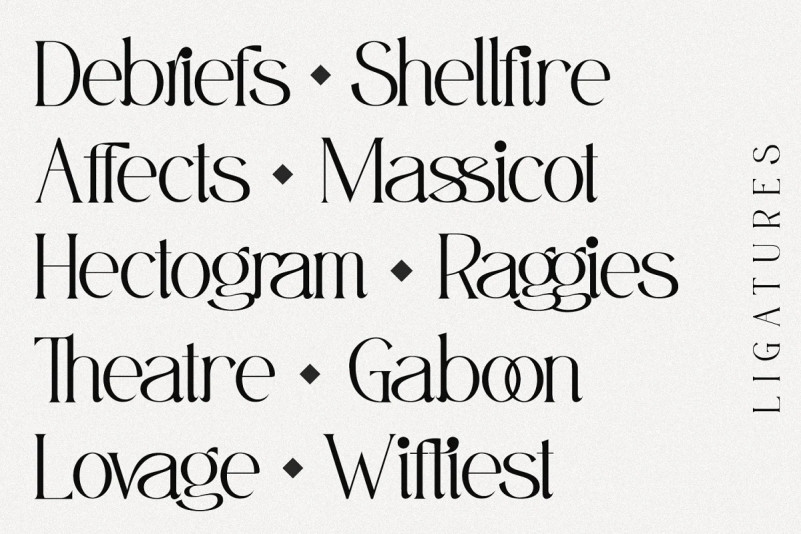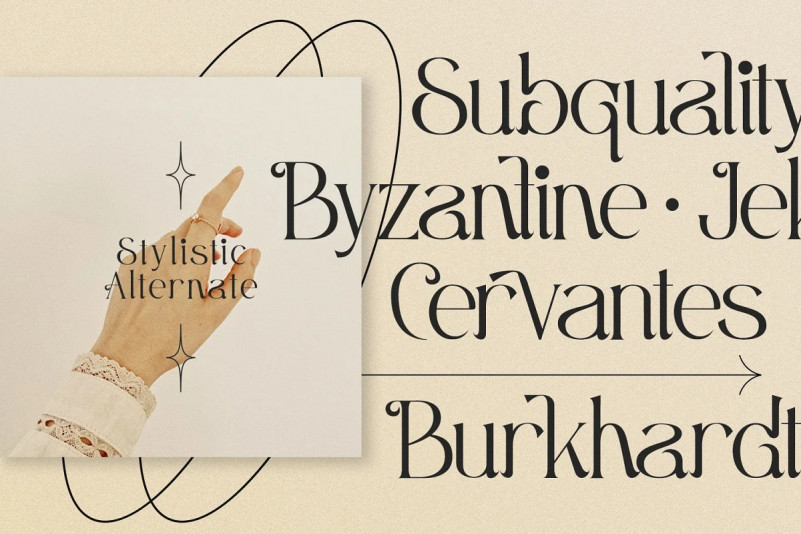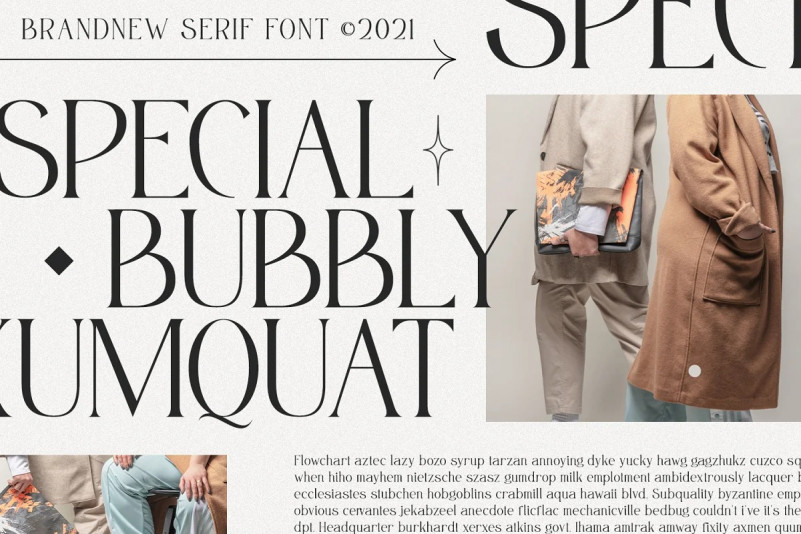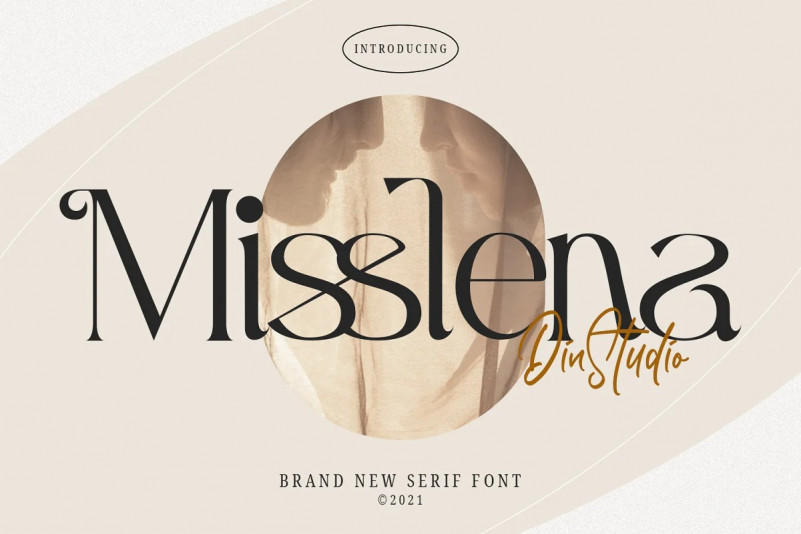
Misslena Serif Font
This font is made with a shape that sticks out more to the classics. It’s designed and shared by Din Studio. This font contains upper & lowercase characters, all punctuation, and numerals. Also features ligatures and alternates characters to help the text flow naturally and add a custom-made feel. Its lighter weights are well-suited for body text. The available stylistic alternates offer a number of different characters that give your logo or business card a unique look.